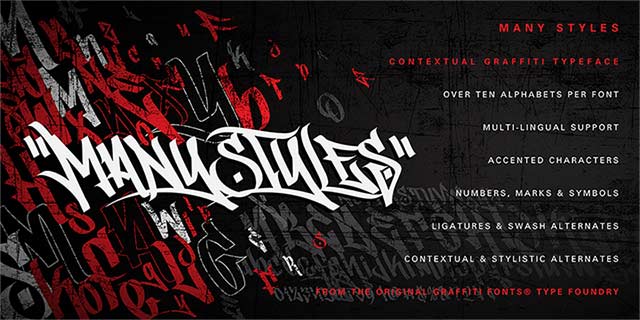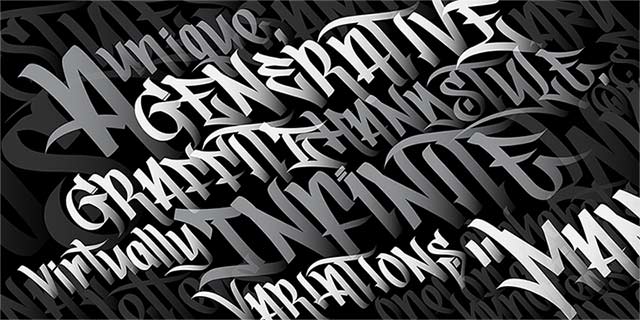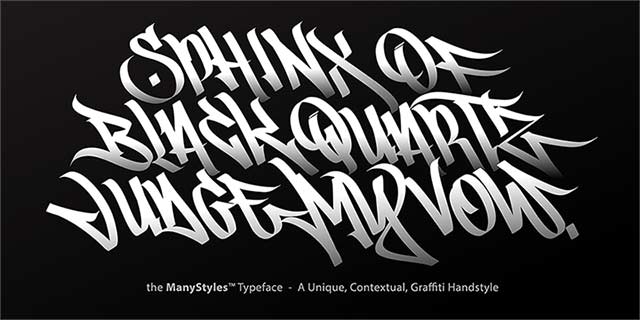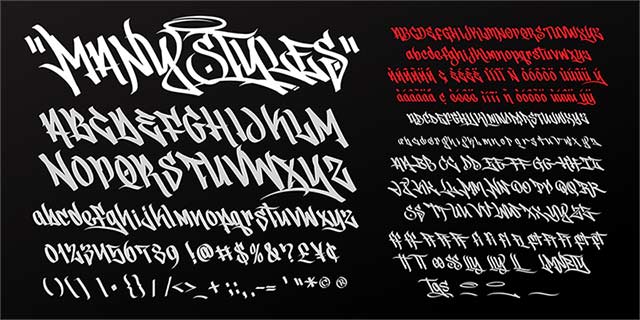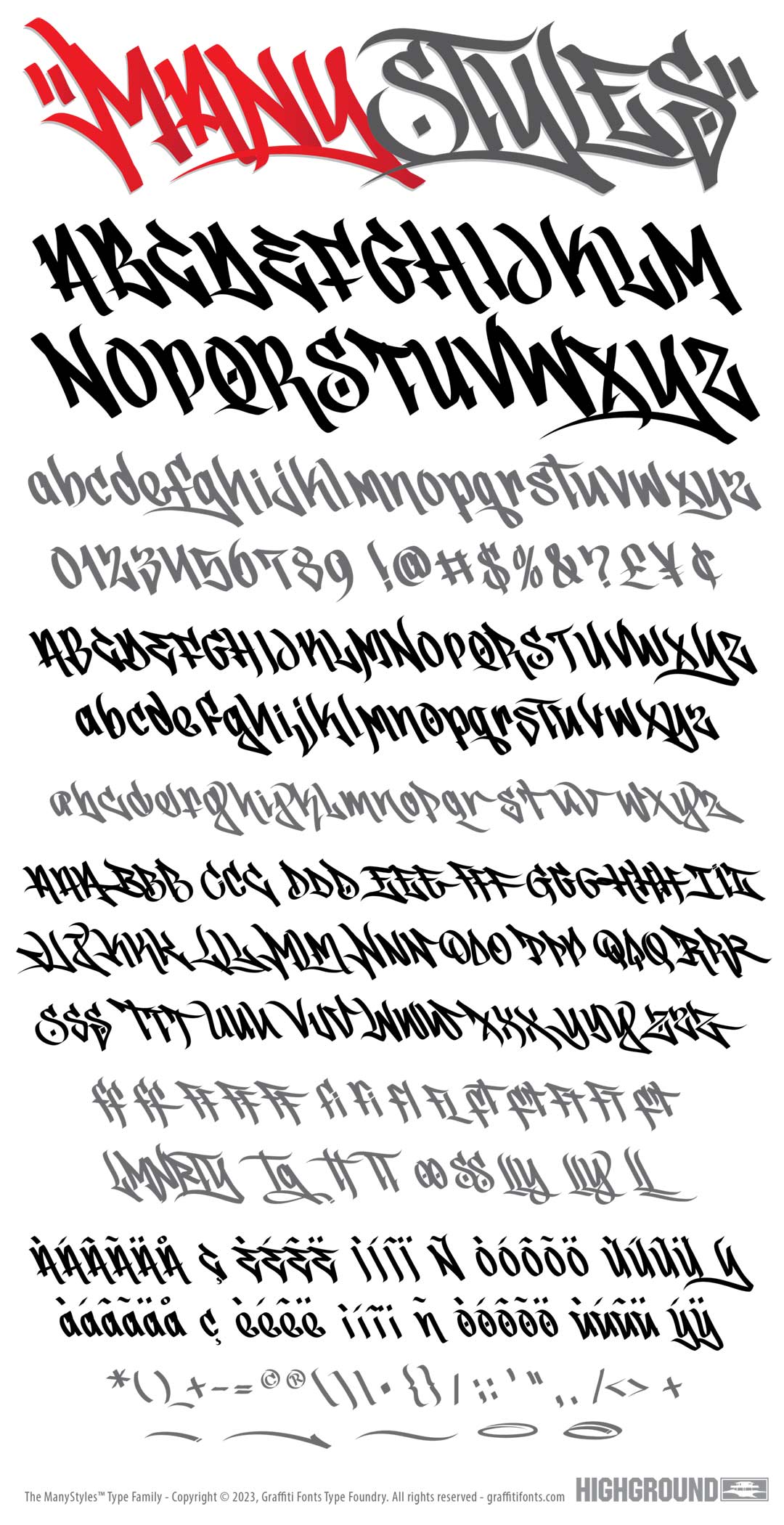
ManyStyles Font
ManyStyles Graffiti Alphabet
ManyStyles Graffiti Font Family
The ManyStyles™ font is a contextual graffiti handstyle with an extensive character set. This single font includes more than ten complete alphabets, providing initial and terminal alternates, stylistic alternates, swash alternates, accented characters and a full complement of numbers, punctuation & symbols. This standard version of our ManyStyles™ generative font is now available at a lower price than the individually unique, generative versions. This legible but still funky style represents traditional, chisel-tip graffiti handstyles for the modern age.